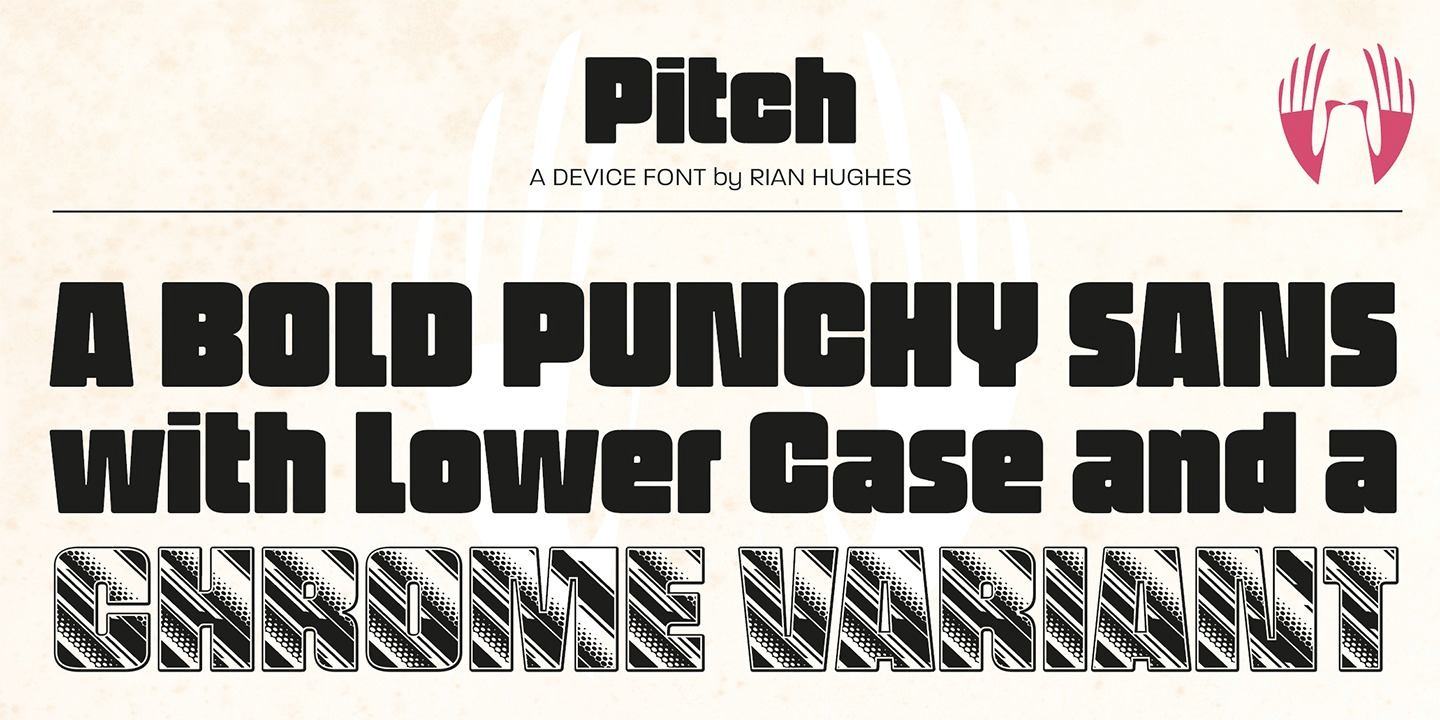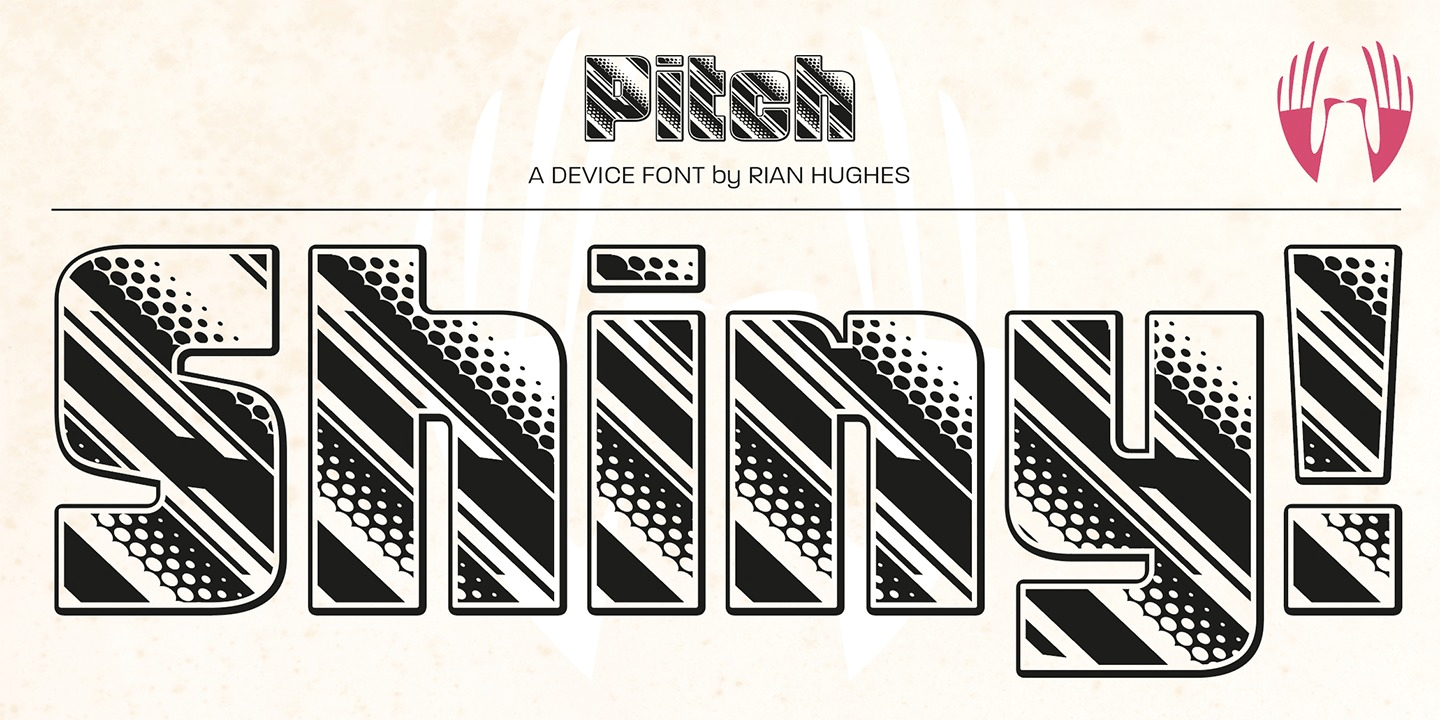
About Pitch
A heavy block sans in chrome and solid variants. The high lower-case x-height and short ascenders and descenders permit tight line spacing for an impactful, punchy effect. The chrome variant works well at larger sizes and in shorter settings.